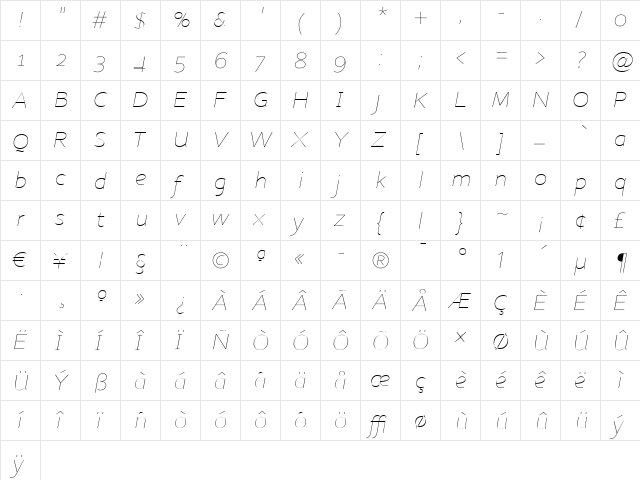
Nubian-ThinItalic Medium Italic
Design Context for Nubian-ThinItalic Typeface
Nubian-ThinItalic is a composed and adaptable typeface that performs quietly and consistently across a wide range of design contexts. The slanted form adds forward momentum and visual energy. Its slender proportions lend an understated elegance to any composition.
Pro Tip: Try Nubian-ThinItalic for annotation and caption copy alongside an upright companion — the contrast in angle creates a dynamic but ordered typographic system.